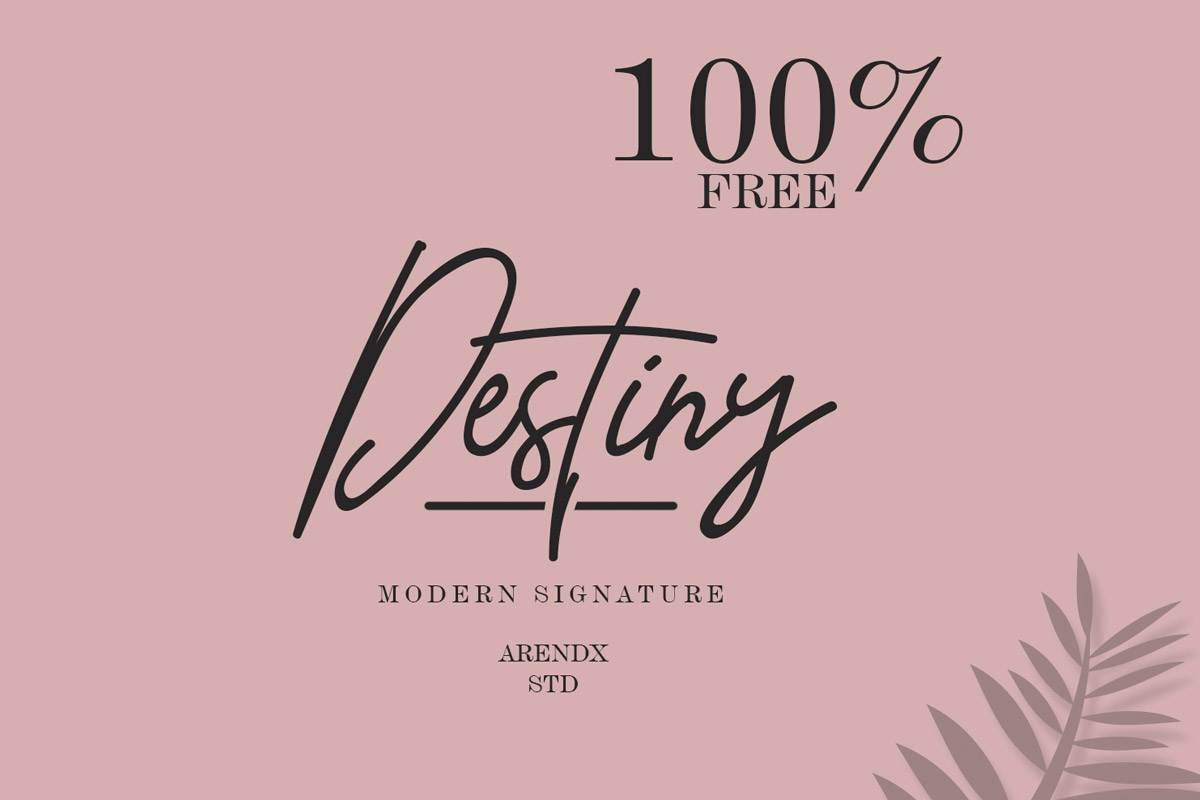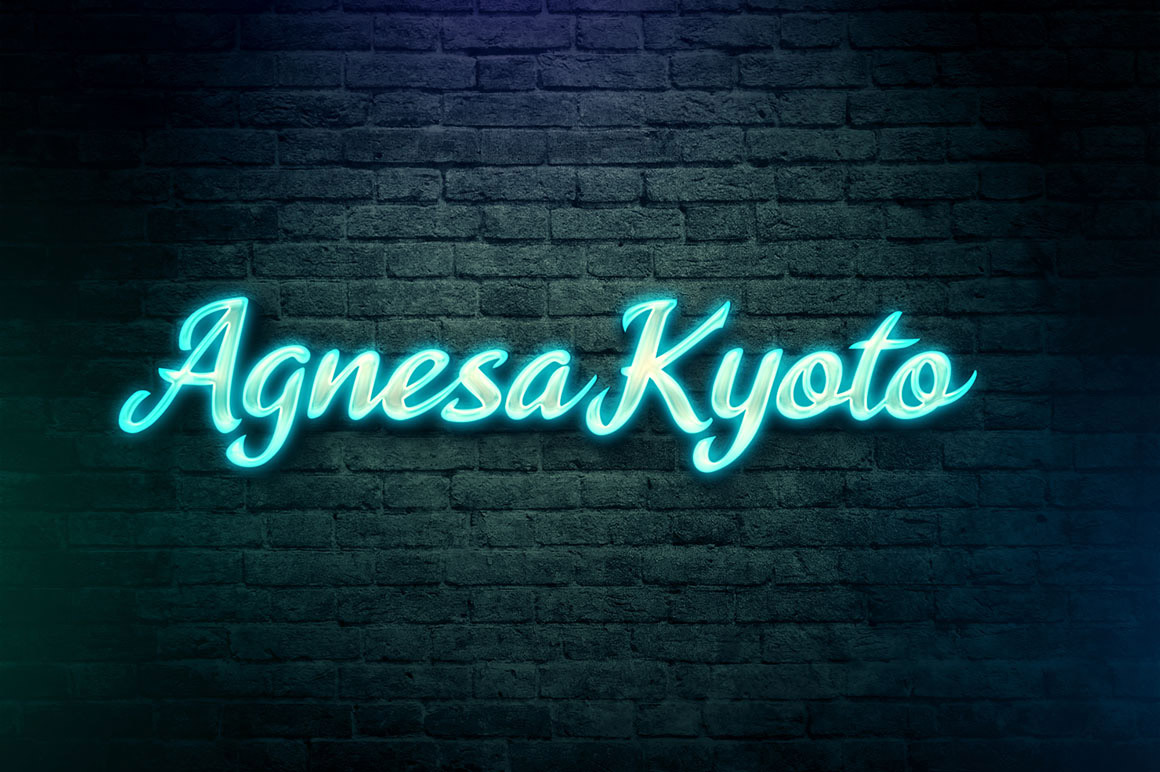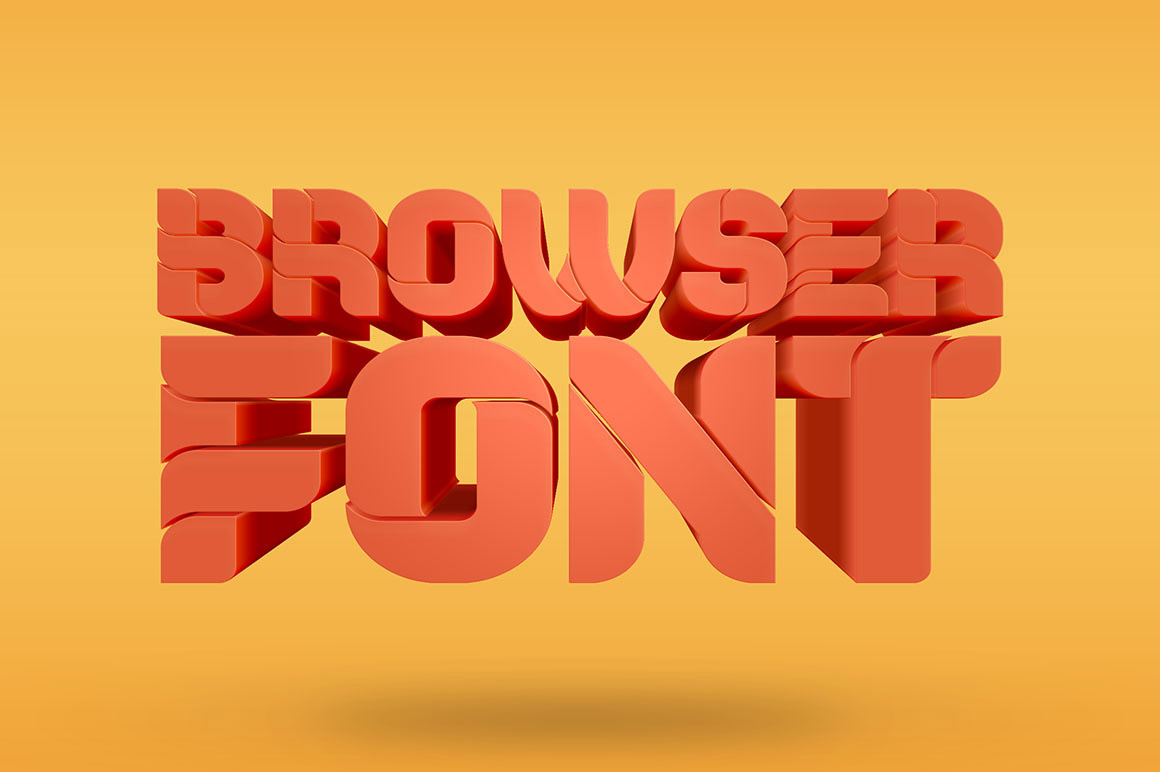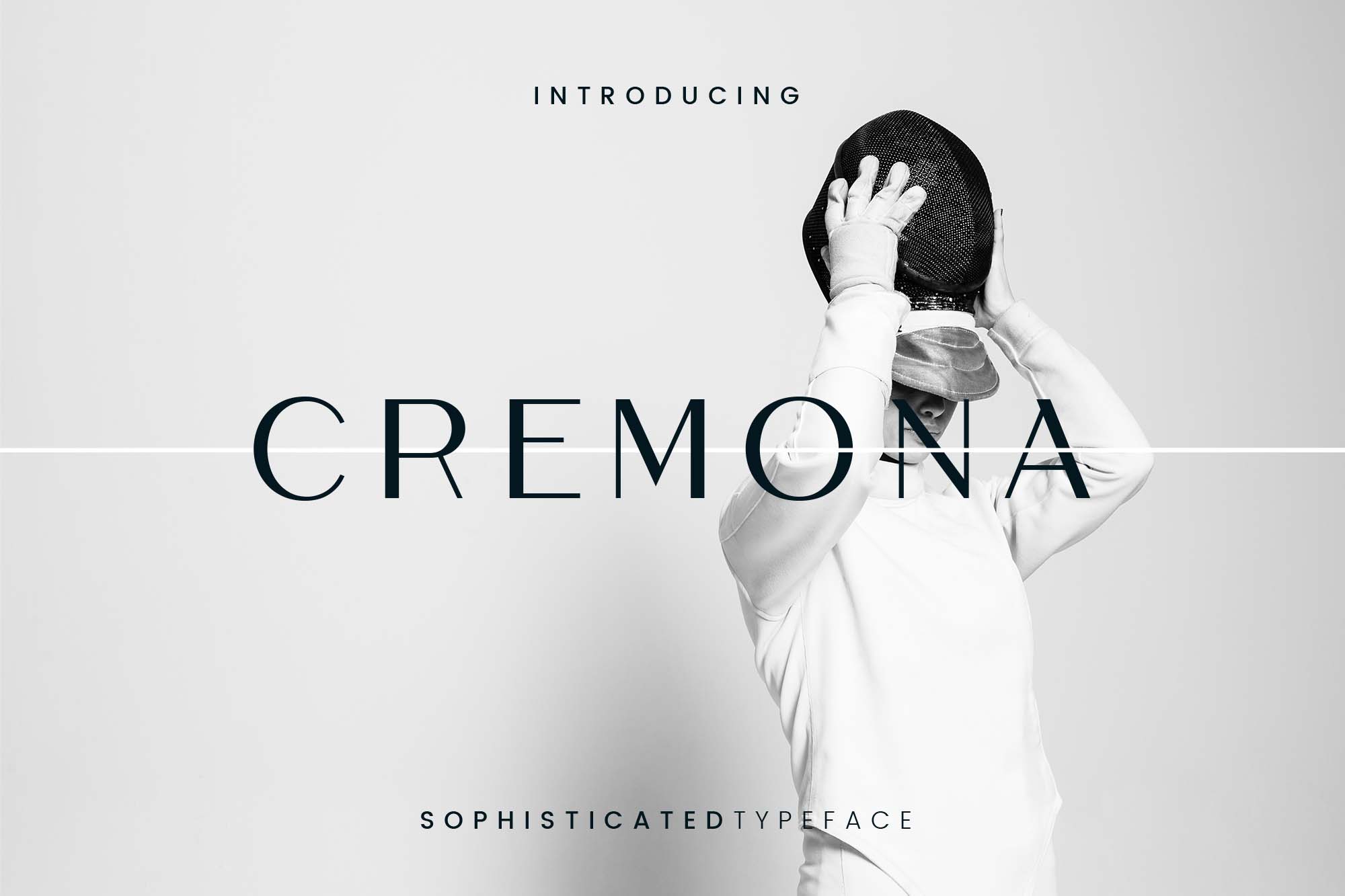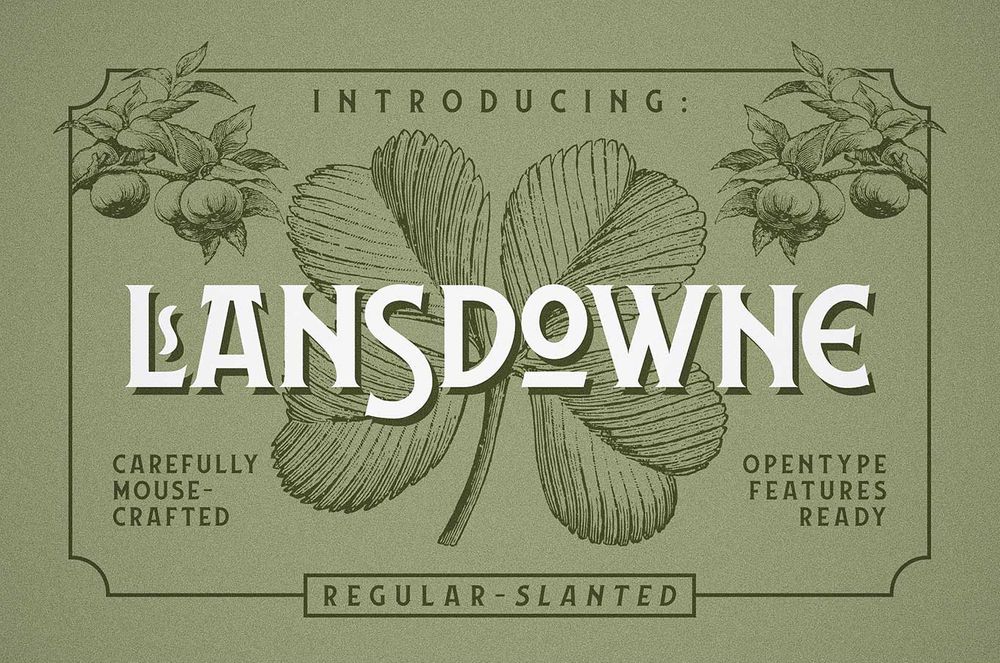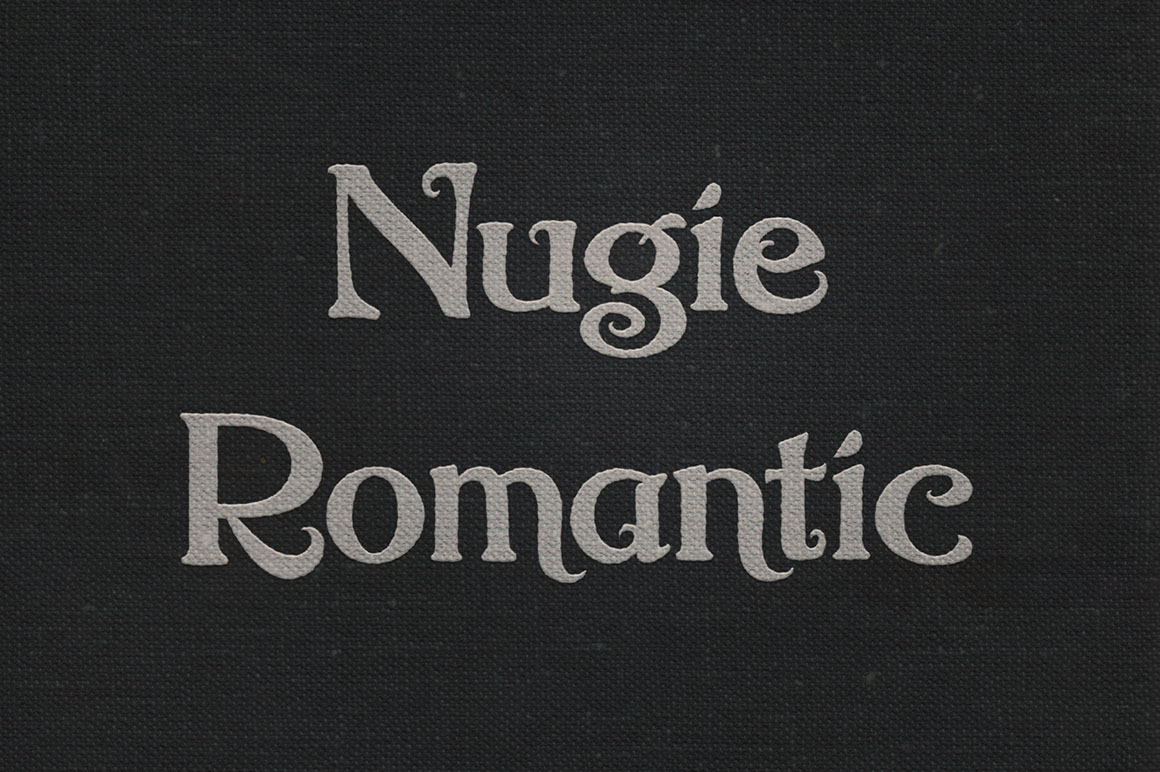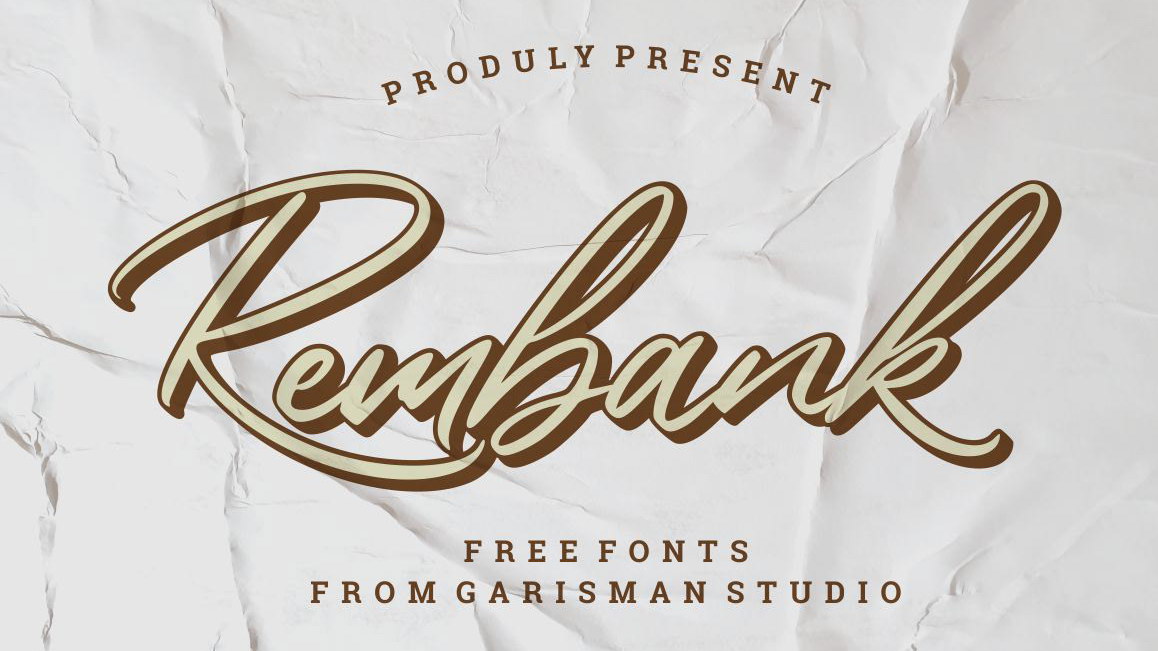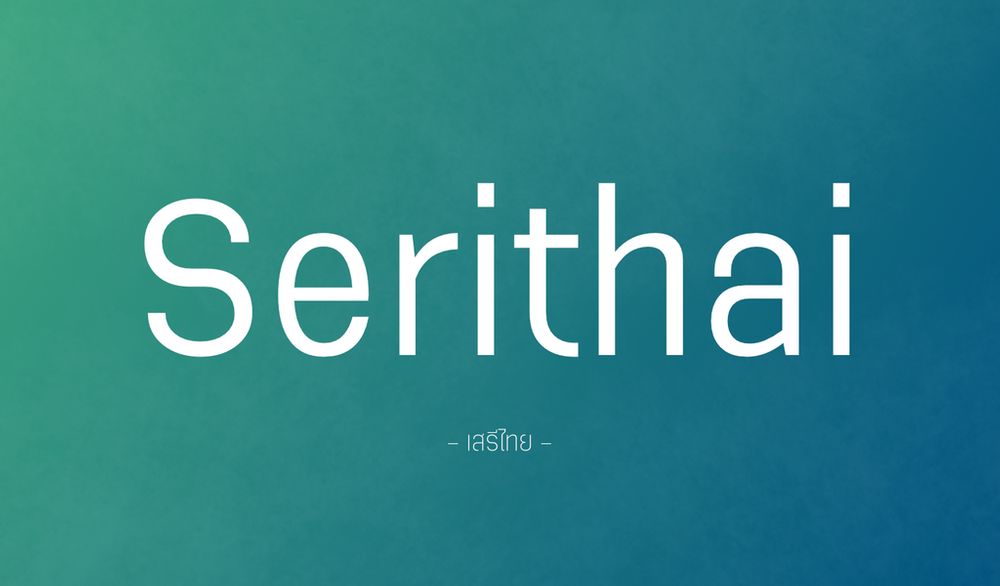
28 Latest Free Fonts for Exceptional Typography Projects
Collection based on clean and elegant script fonts, sans-serif fonts, brush fonts and modern creative fonts for logo design, branding projects, apparel, business cards, Web UI, packaging, advertising, book cover design, social media posts and blogs, e-commerce and any type of print or web invitations and many others print designs.
Here are 28 new free exceptional fonts, special made for your awesome typography design. The following typefaces and fonts are ideal to make an attractive design and fit for any artwork. Enjoy!
Spirit-O Free Font
Free Srabi Script Font
Rembank Font
Believe It – Free Font
Nugie Romantic – Free Font
All Pony – Free Font
Lollipop Font
Aqum Free Font
Slender Free Font Family
NY Bricks Free Font
Landsdowne Free Decorative Font
Free Vintage Monogram Font
ImPerfect23 Free Font
Gamine Typeface – Free Font
Hailgen Tin Font
Serthai Free Font
Browser Free Font
Agnesa Kyoto Free Font
Aneo Font Family
Galaxy Font
Revalate Stylistic Sans Serif
Jullia Script
Aventurina Font
Free Destiny Modern Signature Font
Cremona Sans Typeface
Myste Sans Serif Font
Technique Sans Font
Jasmine Rothem Free Font